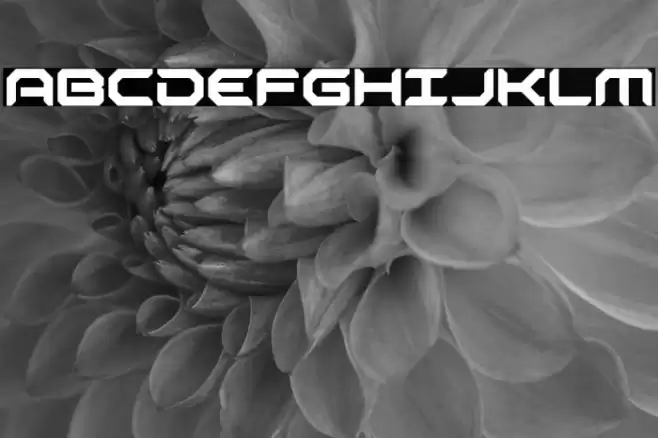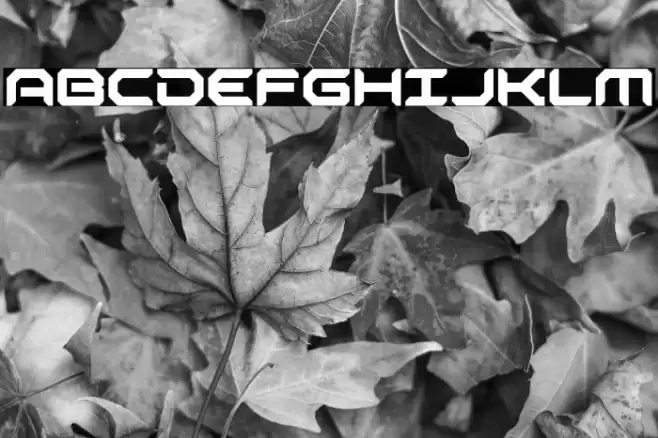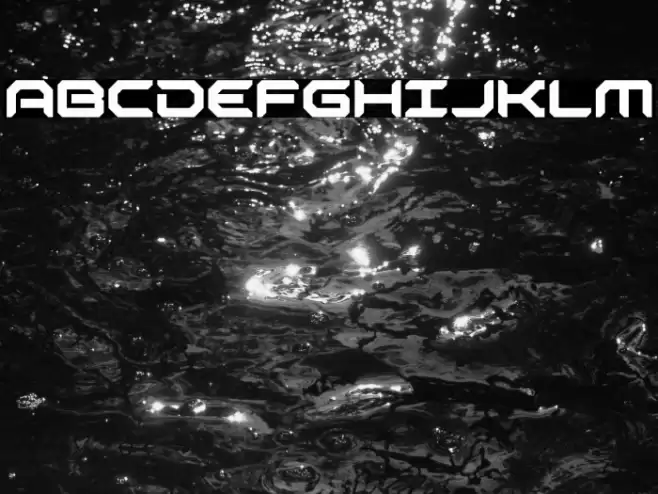
Robotaur Font
Robotaur Description
This font features a bold, futuristic design with geometric shapes and sharp angles. The characters are formed with a consistent thickness, giving it a uniform and cohesive appearance. The uppercase and lowercase letters maintain a similar style, with the lowercase being slightly more compact. Numbers and special characters follow the same angular design, ensuring a seamless integration across all text elements. The font's unique style is reminiscent of digital or sci-fi themes, making it ideal for projects that require a modern and technological aesthetic.
A bold, futuristic font with geometric shapes and sharp angles from Uncategorized fonts.
- Font: Robotaur
- Proposed Projects: Ideal for technology branding, sci-fi movie posters, video game titles, and digital interfaces.